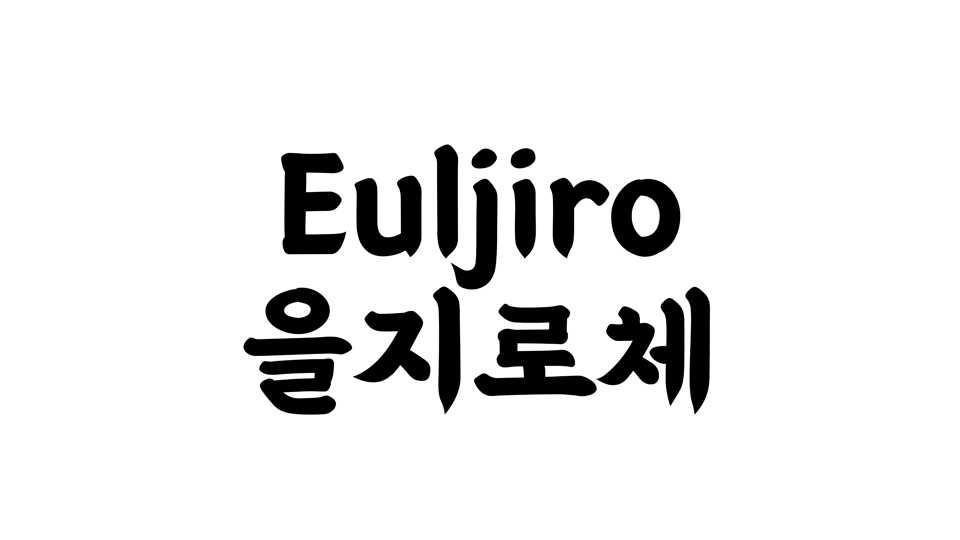
Download Euljiro font, a hand lettered typeface made based on the hand-painted shop signs in Eulji-ro, painted by unknown craftsmen. Euljiro features a powerful start of each stroke and a relaxed touch of a paintbrush.
Designer: Woowa Brothers